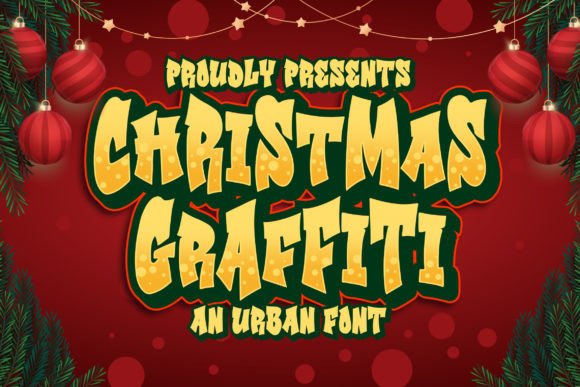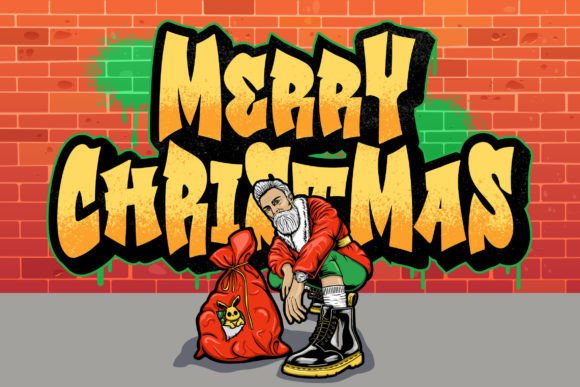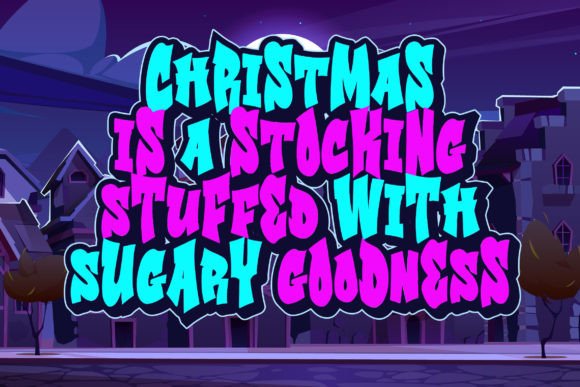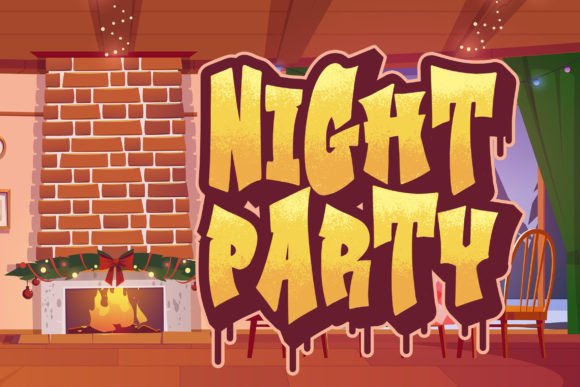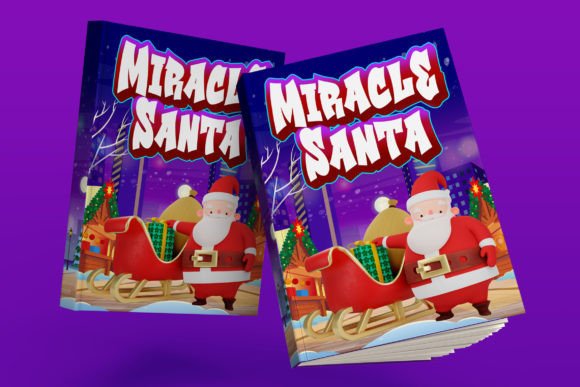
Christmas Graffiti: An Urban-Inspired Font
Christmas Graffiti is an urban-style font inspired by street typography. This creative typeface brings playful character and aesthetic appeal to various design applications, from book covers to merchandise.
Key Features of Christmas Graffiti
- Urban Design: Offers street-inspired letterforms.
- Playful Style: Brings creative character to designs.
- Aesthetic Appeal: Features attractive visual elements.
- Versatile Usage: Adapts well to numerous applications.
Best Uses for Christmas Graffiti
Thanks to its creative characteristics, Christmas Graffiti works especially well for:
- Book covers
- Eye-catching posters
- Product packaging
- Merchandise design
- Distinctive logotypes
- Urban branding
- Creative projects
When using Christmas Graffiti in your designs, keep these tips in mind:
- Try it for headlines to showcase its urban style.
- Use its playful character for creative projects.
- Take advantage of its aesthetic appeal for attention-grabbing designs.
- Let its versatility enhance various applications.
To sum up, Christmas Graffiti is an excellent choice for designers seeking an urban-inspired font with creative appeal. Its versatility makes it perfect for various projects. Whether you’re creating book covers, designing merchandise, or developing logotypes, Christmas Graffiti offers the perfect blend of street style and playful sophistication.
Furthermore, Christmas Graffiti’s distinctive design allows it to shine in contexts where both creativity and impact are key. From packaging to posters, this font can elevate your projects with its urban style. Also, its aesthetic appearance works particularly well in designs that aim to make a bold, creative impact.
In conclusion, Christmas Graffiti truly captures the essence of urban design in typography. Its ability to work across different applications shows how well it can serve various creative needs. Therefore, for those wanting to add a touch of street-inspired creativity to their work, Christmas Graffiti can enhance any design with its distinctive style. Ultimately, it’s perfect for designers aiming to make a playful, urban impact across creative projects.